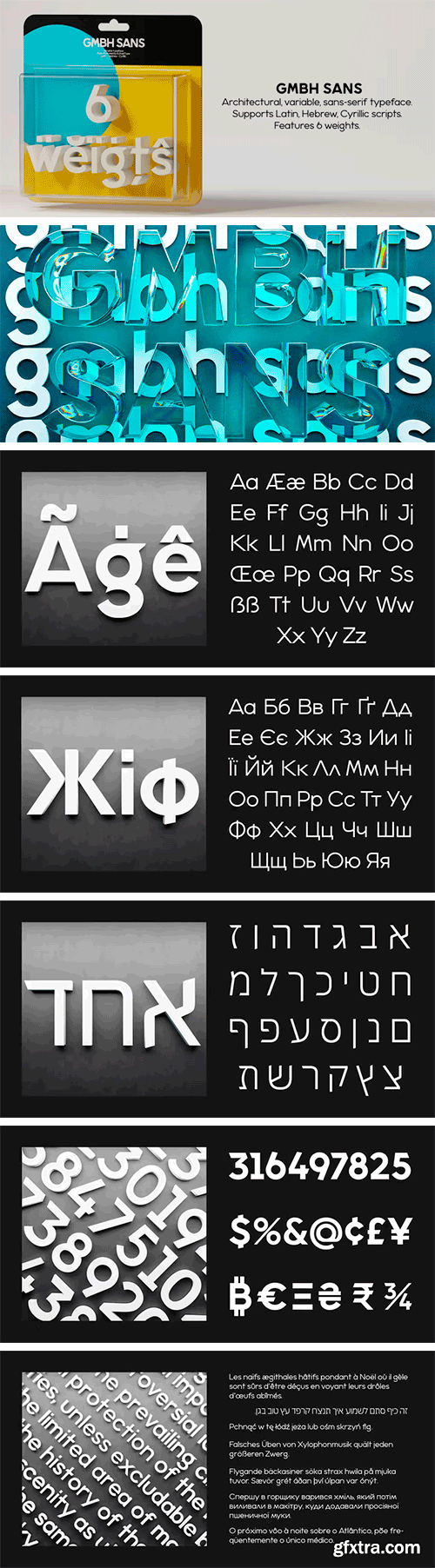
The architectural sans-serif in sharp junctions silhouette. Designed as a display typeface for headline sizes. Typeface maintains it's unique identity even in all lowercase letters due to 21 degrees slanted stems (vertical strokes of letters). Variable typefaces provides subtle gradation of 6 weights. Each weight retains the same character width (except character i and l). Typeface supports: Latin characters with diacritical marks; Cyrillic characters (Ukrainian, Russian); Hebrew; Contains additional monetary symbols (₿Ξ₴₹₪).